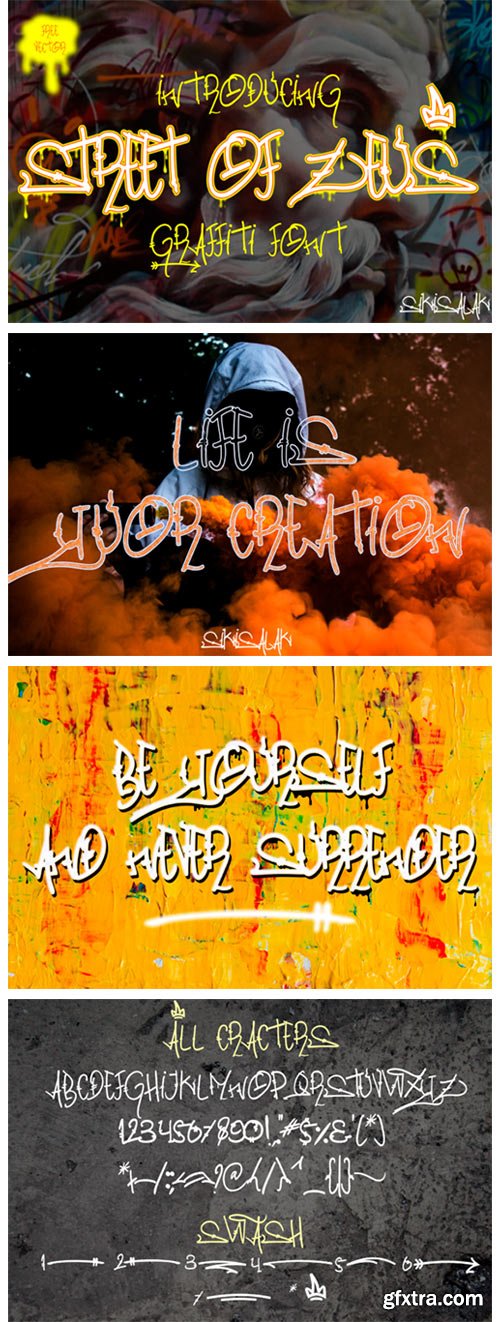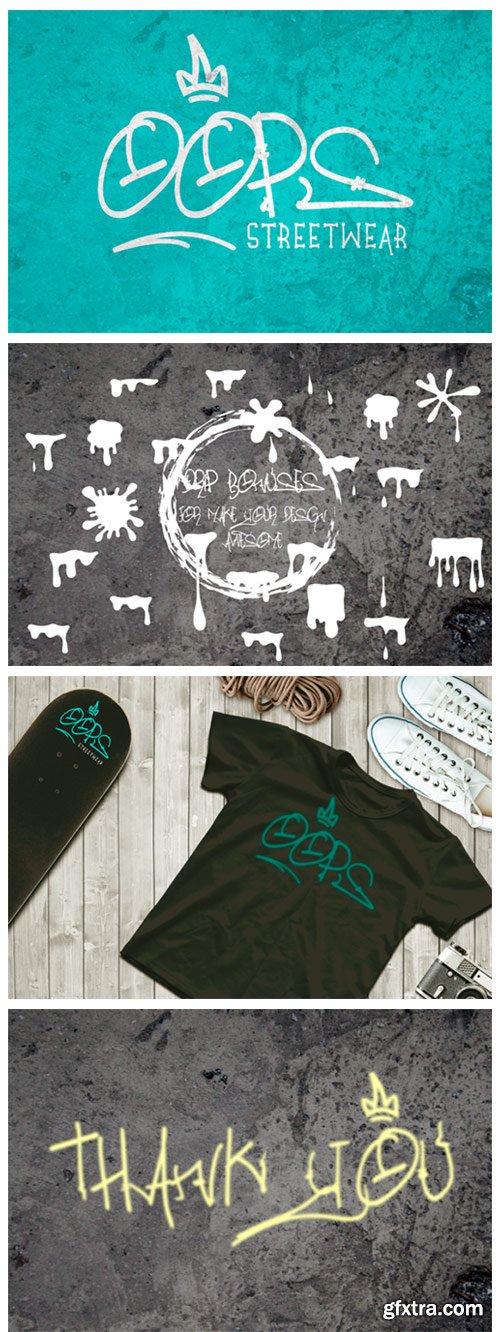
Street of Zeus Font
Street Of Zeus is an urban styled display font. It will elevate a wide range of design projects to the highest level, be it branding, headings, invitations, signatures, logos, labels, and much more.